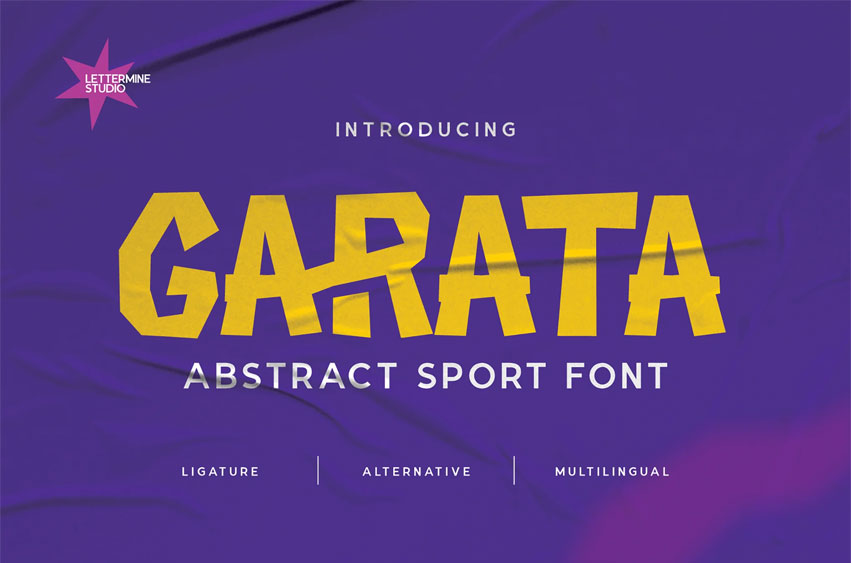
Garata Font
Garata Font is a bold, abstract display font built for energy and impact. Its unique angled forms and chopped character shapes give off a powerful, athletic vibe, making it perfect for sports branding, esports teams, poster headlines, apparel design, and action-themed media.
Equipped with:
• Uppercase letters
• Alternates & ligatures
• Numbers & punctuation
Whether you’re creating a fierce team logo, an edgy event poster, or a cutting-edge streetwear brand, Garata delivers unmatched strength and visual punch.